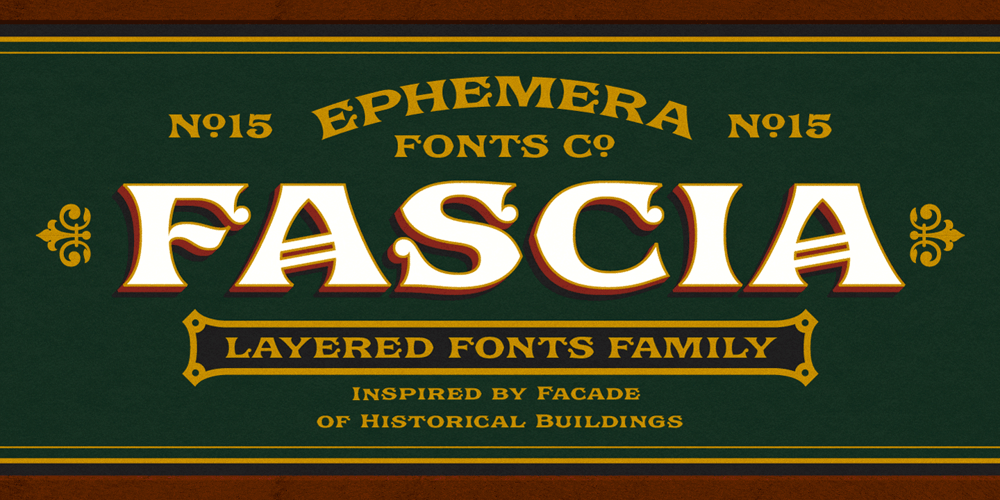
Ephemera Fascia Font Family was designed by Ilham Herry and published by Ephemera Fonts. Ephemera Fascia contains 5 styles and family package options. Ephemera Fascia is a typeface inspired from facade sign of historical building. 5 layer styles available from outline, inset, base, shadow 01, shadow 02. Opentype features support such as Stylistic set 01, Stylistic set 02, Stylistic set 03, and Discretionary Ligature.This typeface was created for Display needs, such as headlines, menu board, signage, logotype, badges design, packaging, etc.Caps only fonts.